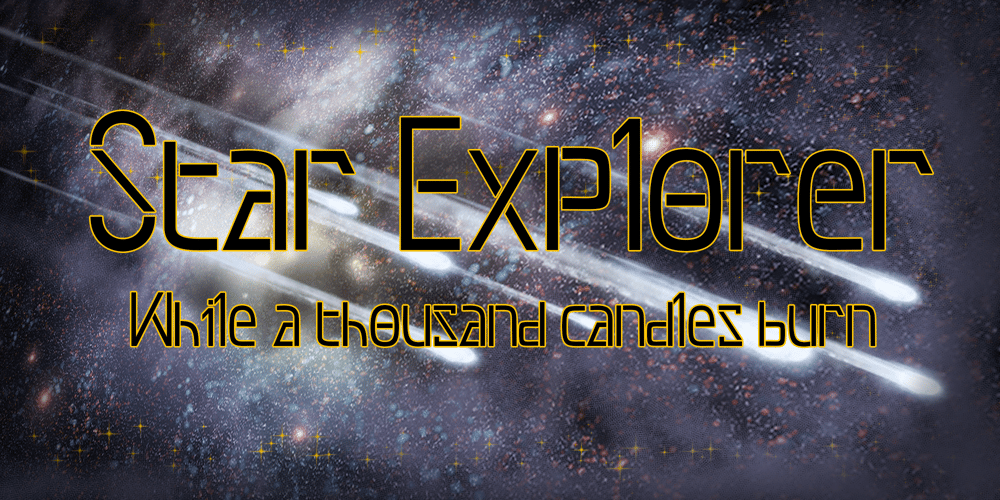
Star Explorer
Star Explorer font
Star Explorer Font Family was designed by Ali Nurdiansyah and published by Alcytrectype. Star Explorer contains 1 styles and family package options. Its unusual design makes it unique in a different look and also different for those who don’t like mainstream things.With the OpenType feature, which will make it easier for users.Uniquely inspired by Gundam Stargazer, that’s where this design was created.As the suggest, inspiration sometimes always appears even if we stop for a moment and reflect.